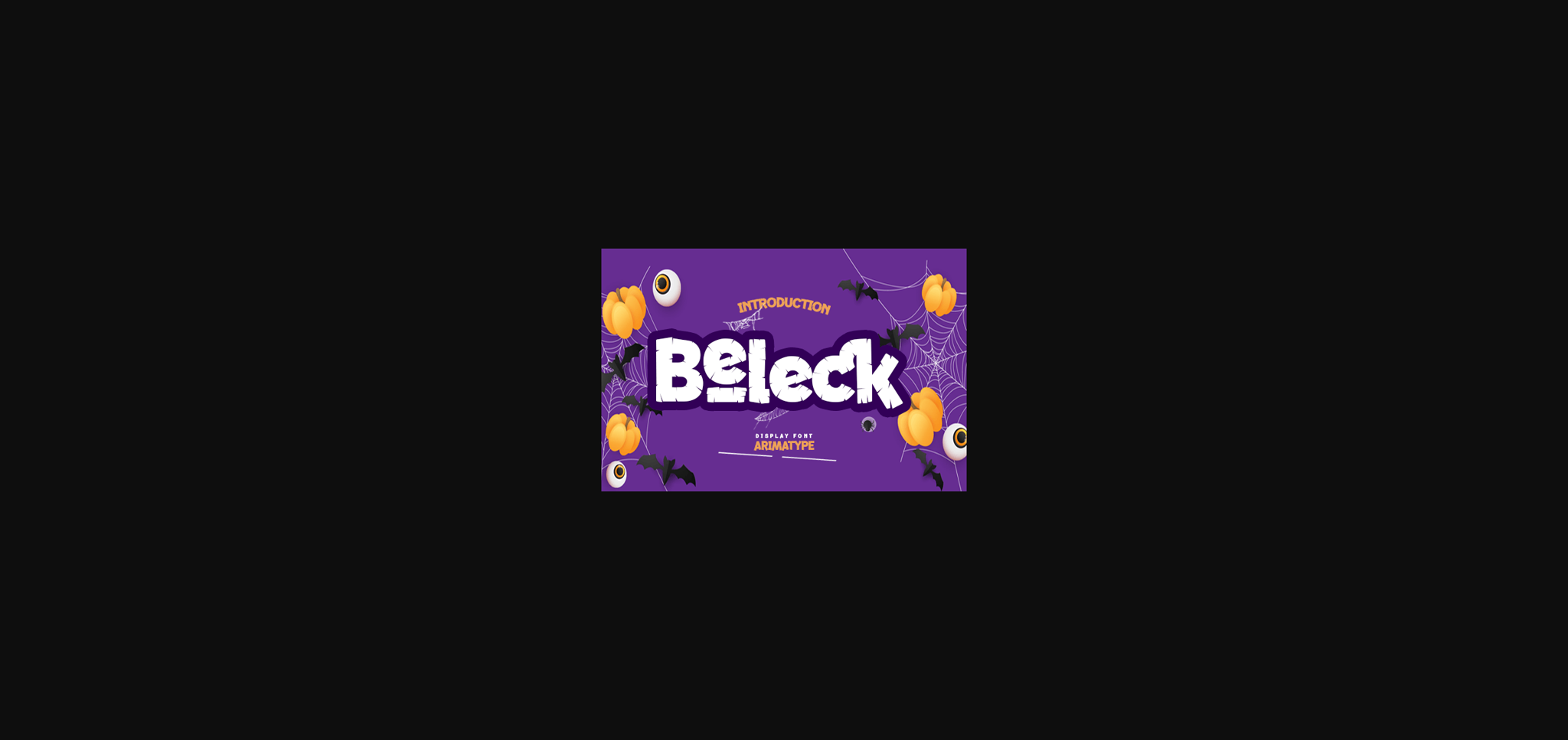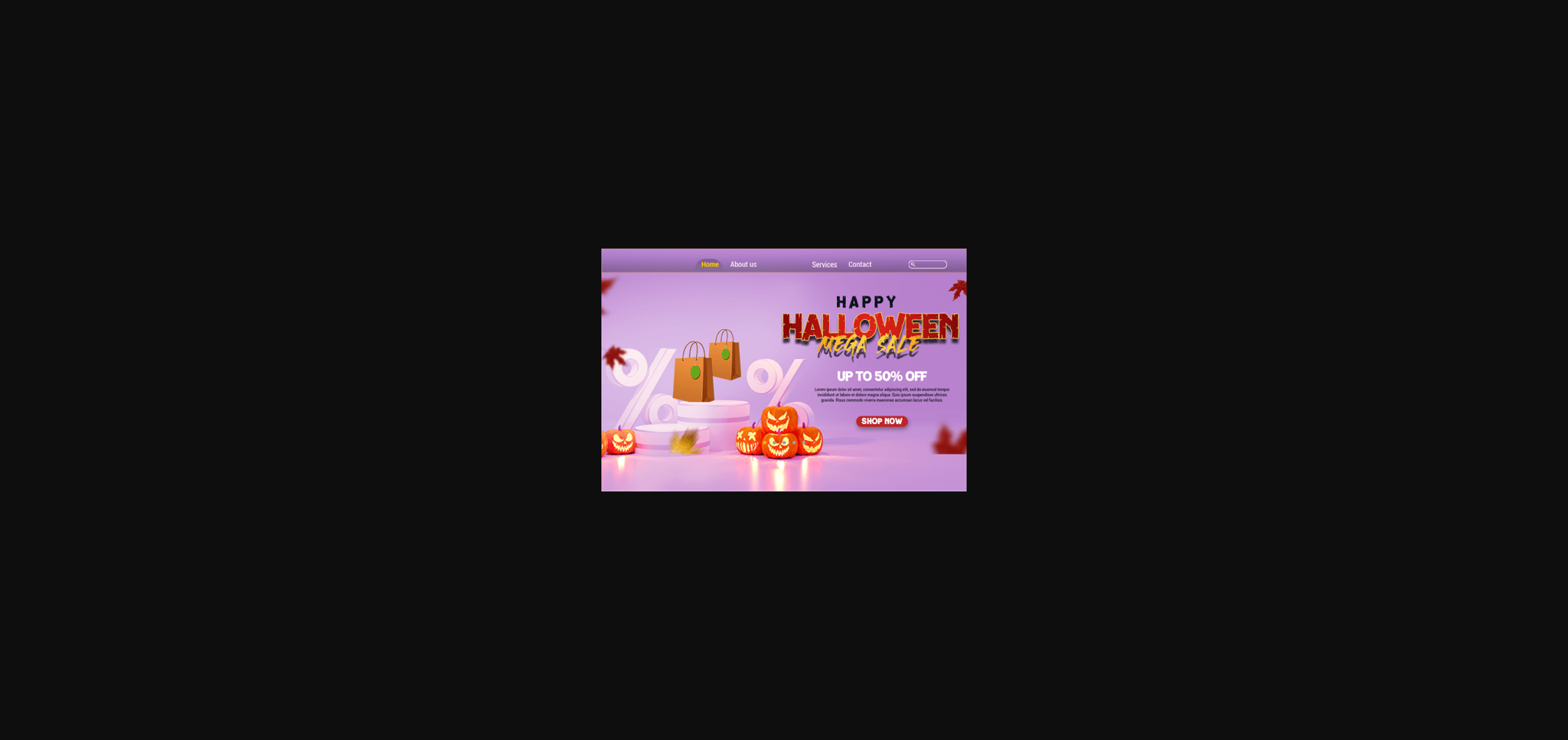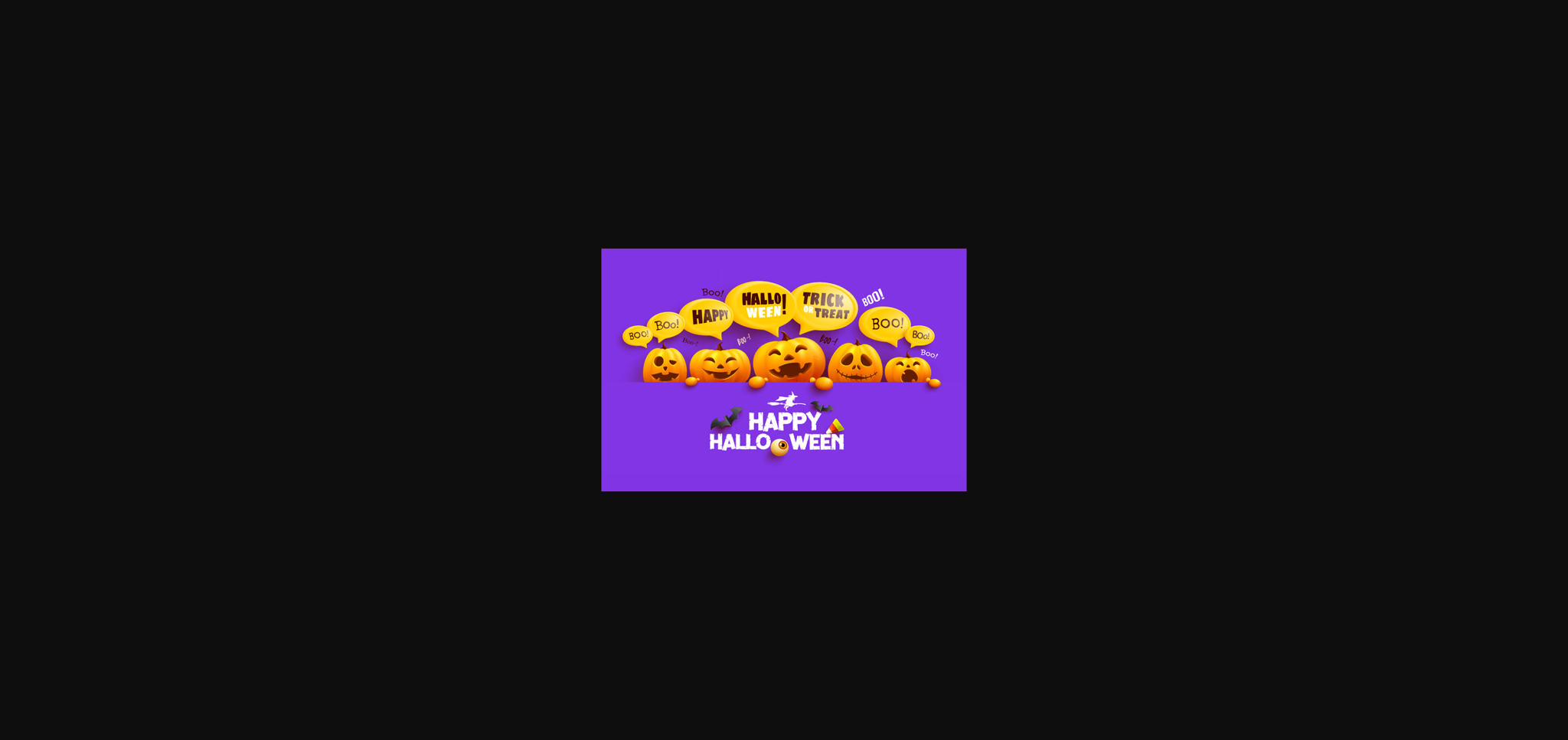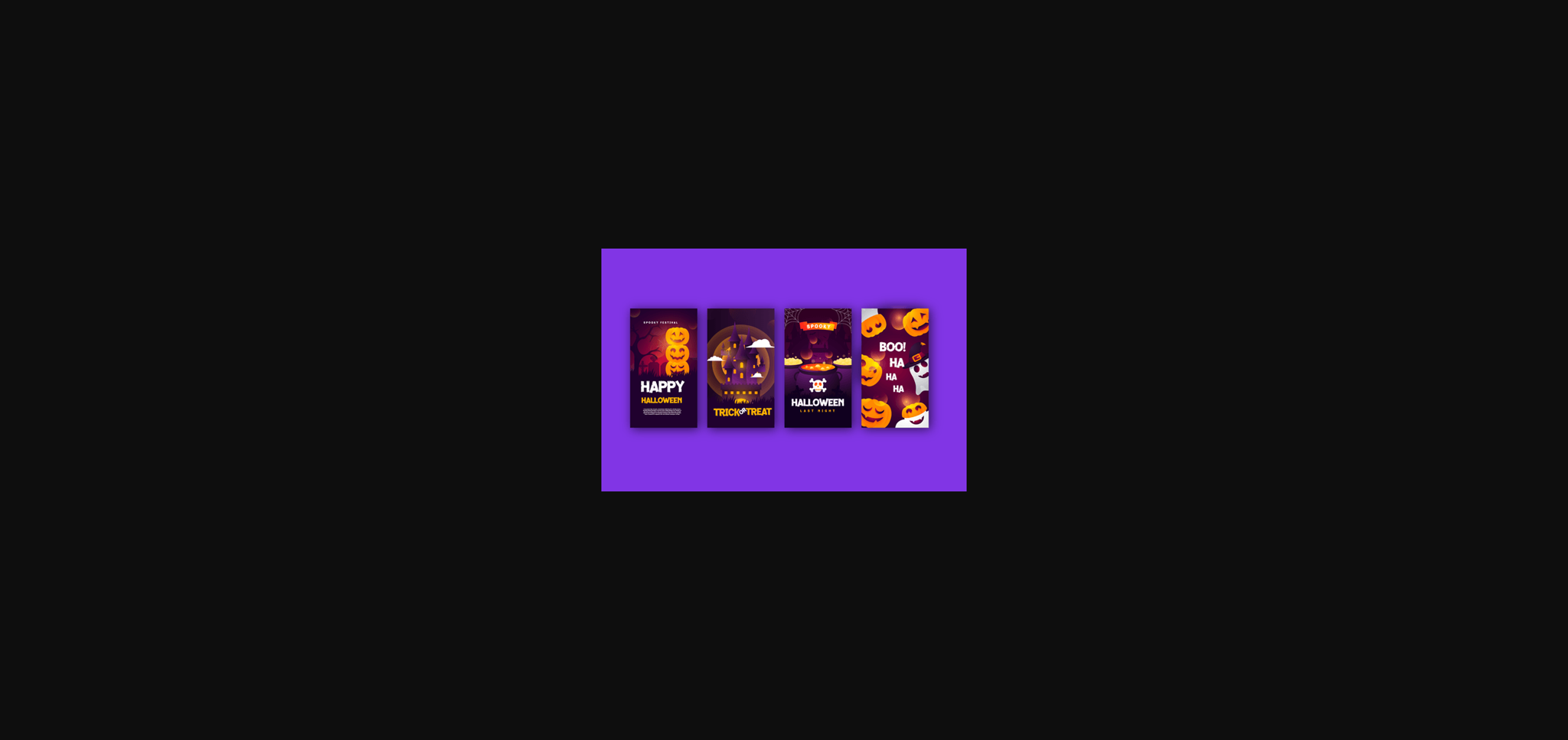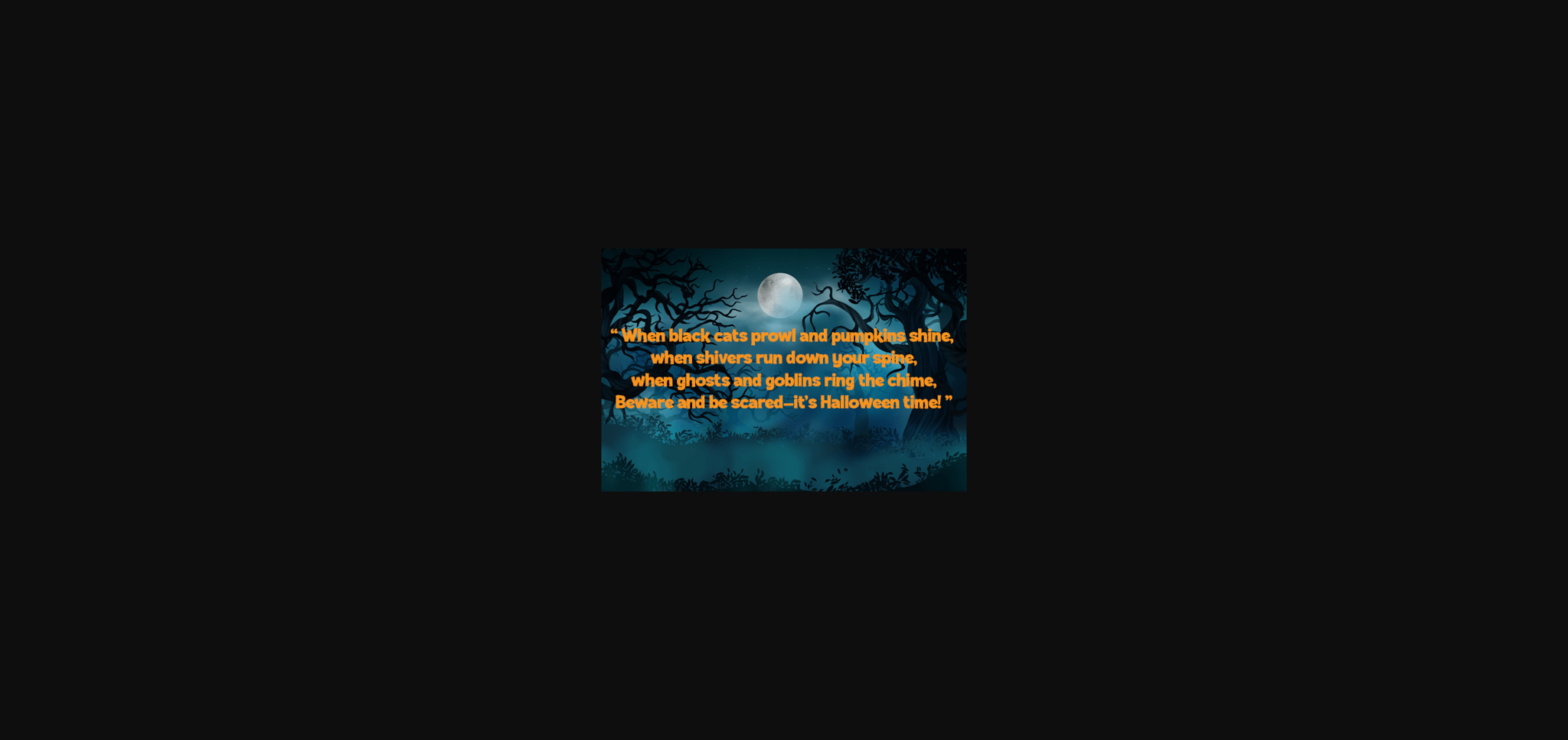
About Beleck Font
Beleck is a fun and cool display font. Whimsical and with a spooky twist, this font is perfect for all your Halloween or horror-themed designs. This font is PUA encoded which means you can access all the glyphs and ligatures with ease!